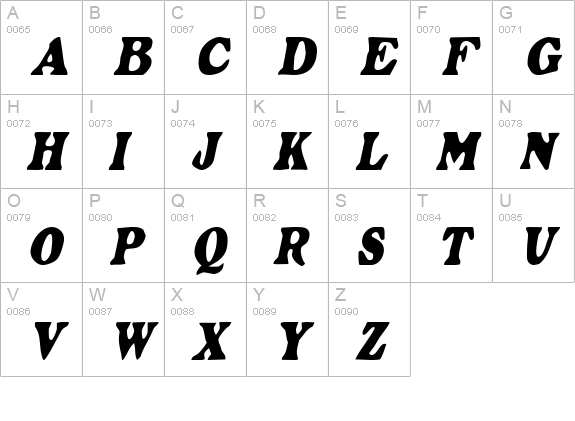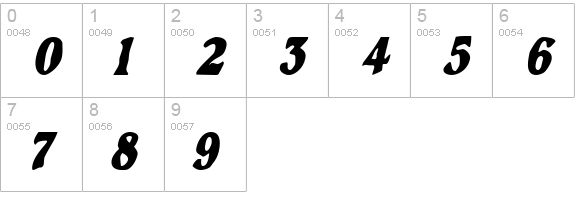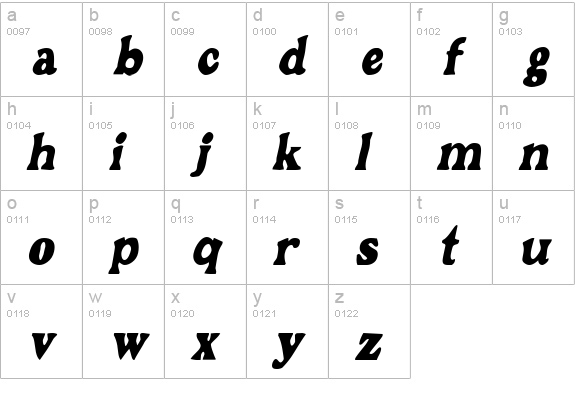
GrantCondensed Oblique is a distinctive, italic variant in the GrantCondensed typeface family \xE2\x80\x94 well suited to design and typography projects.
GrantCondensed Oblique is a modern and stylish font that exudes sophistication and elegance. Its sleek and slanted design adds a touch of flair to any project, making it perfect for branding, advertising, and editorial design. The italicized letters create a sense of movement and flow, adding a dynamic element to your text. What makes GrantCondensed Oblique even more appealing is that it is available for free download at FontsMarket.com. This means you can easily access this high-quality font and use it in your designs without any cost. Don't miss out on this opportunity to elevate your projects with the GrantCondensed Oblique font. Download it today and add a touch of class to your creations.